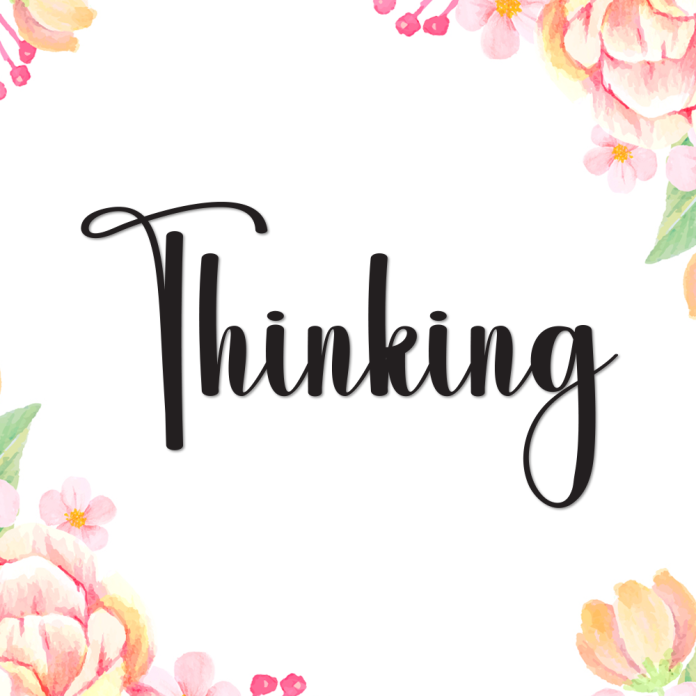
Thinking is a graceful handwriting font that captures a sense of thoughtfulness and simplicity. With flowing strokes and a gentle rhythm, it evokes the feel of a quiet journal entry or a heartfelt letter.
Ideal for branding, quotes, stationery, and digital notes, Thinking blends clarity with a warm, handwritten charm.
Elegant and thoughtful handwriting style
Smooth, flowing lines with a natural feel
Perfect for journals, personal blogs, packaging, and lifestyle brands
Includes uppercase, lowercase, numbers, and punctuation
Let your ideas speak with subtle elegance using Thinking — where every word feels intentional.